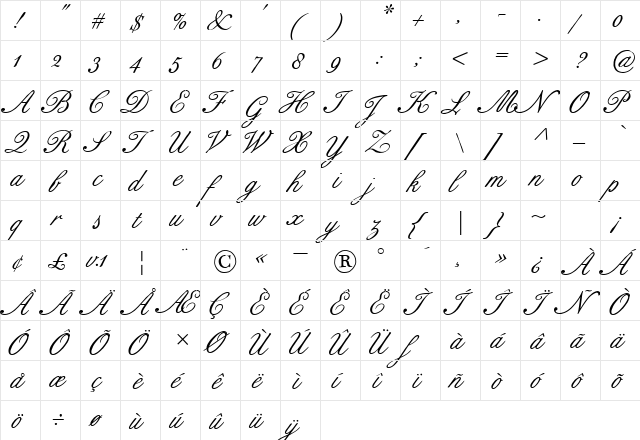
Bix Antique Script Hmk Regular
Design Context for Bix Antique Script Hmk Typeface
Bix Antique Script Hmk wears its vintage influences proudly, with letterforms that recall mid-century signage, classic packaging, and nostalgia-driven design.
Perfect for vintage-inspired branding, retro packaging, nostalgia campaigns, and period-accurate editorial design.
Font Pairing: Combine Bix Antique Script Hmk with a simple slab or neutral sans — period-accurate companions reinforce the vintage feel without competing for attention.
Pro Tip: Use Bix Antique Script Hmk for headlines and pull quotes rather than body copy — its personality is best appreciated in short, focused bursts.